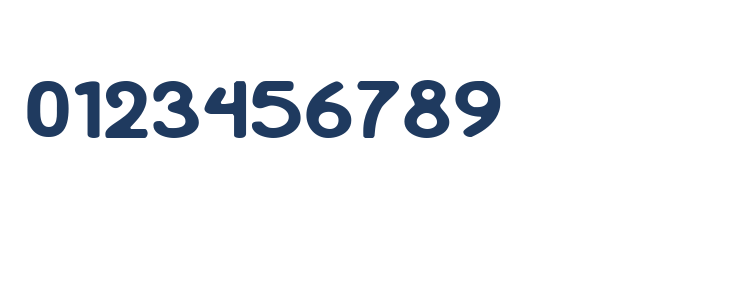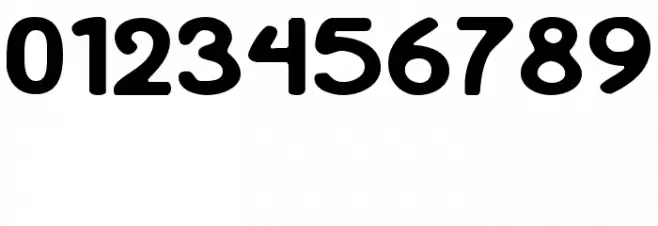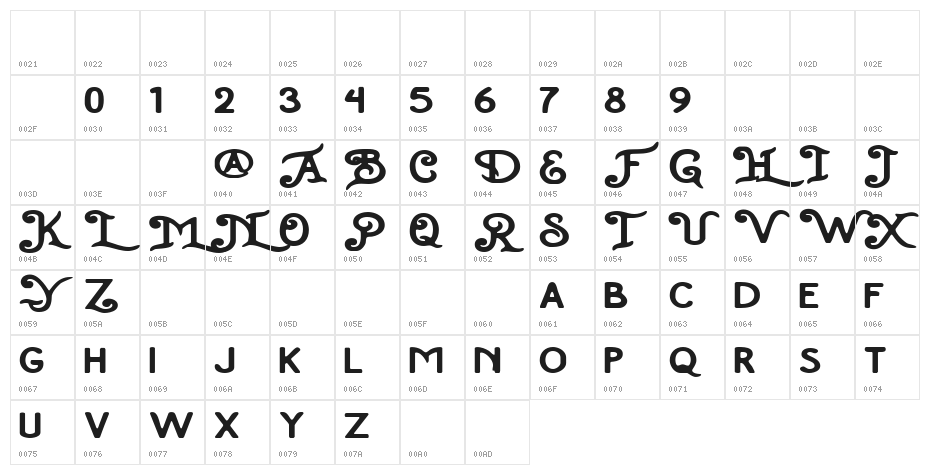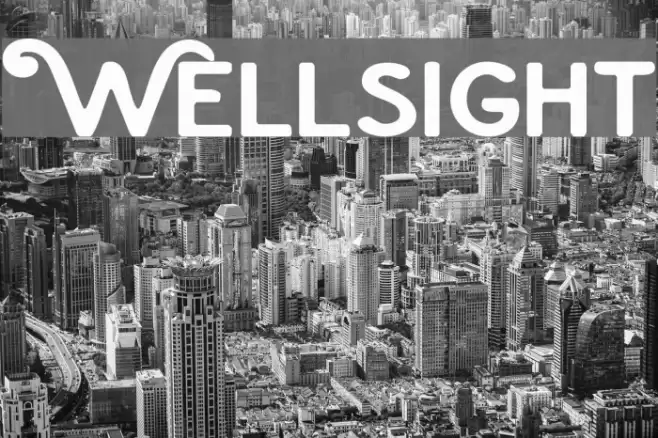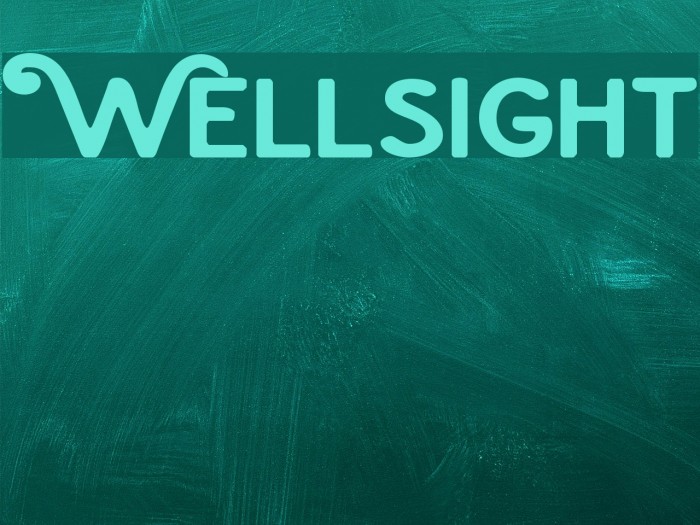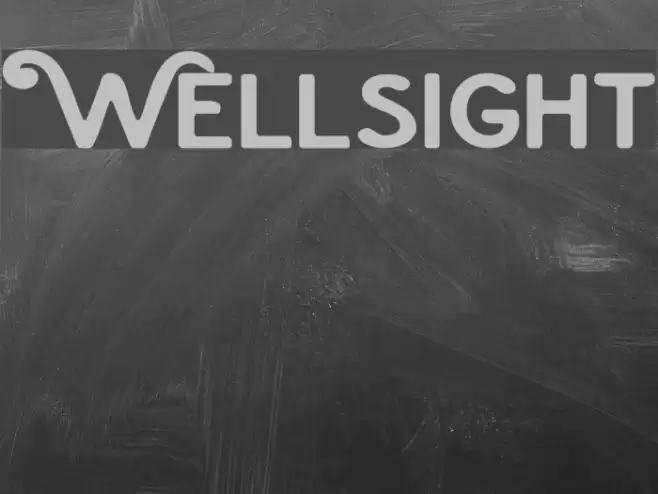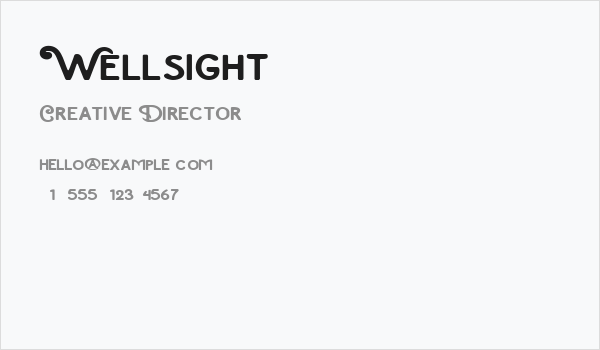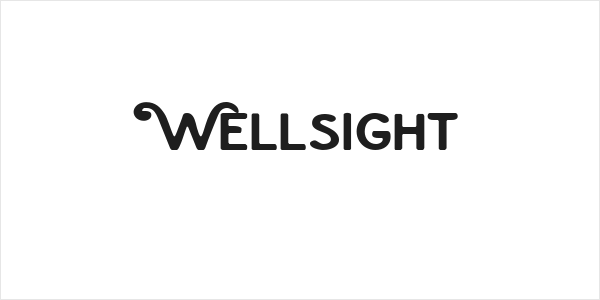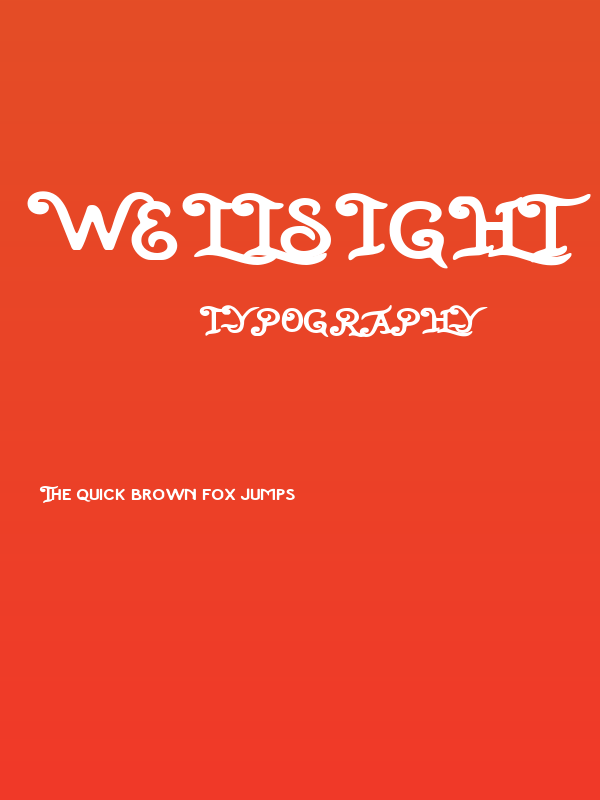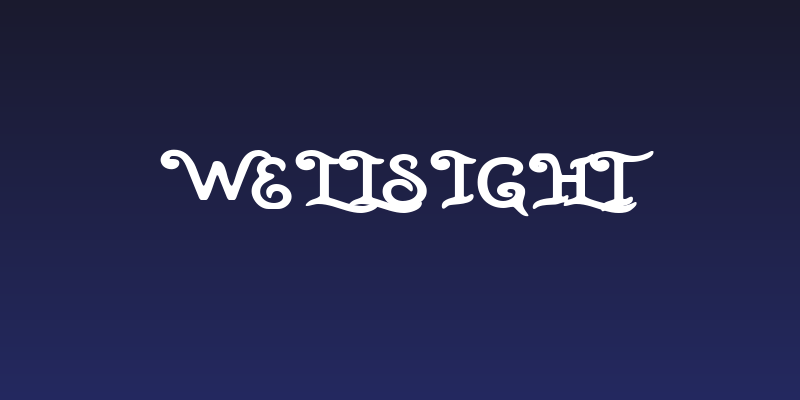
Wellsight Font
Wellsight Description
This font features two distinct styles. The first style is a decorative, ornate design with intricate curls and flourishes, giving it a whimsical and artistic appearance. The uppercase letters are embellished with unique swirls, making it ideal for creative and eye-catching designs. The second style is a bold, sans-serif typeface with smooth, rounded edges, providing a clean and modern look. This style is straightforward and highly legible, suitable for various applications where clarity is essential. The combination of these styles offers versatility, allowing for both decorative and practical uses.
| Overall Style | Decorative, Modern |
| Proposed Projects | Ideal for branding, posters, invitations, and any design requiring a mix of elegance and clarity. |